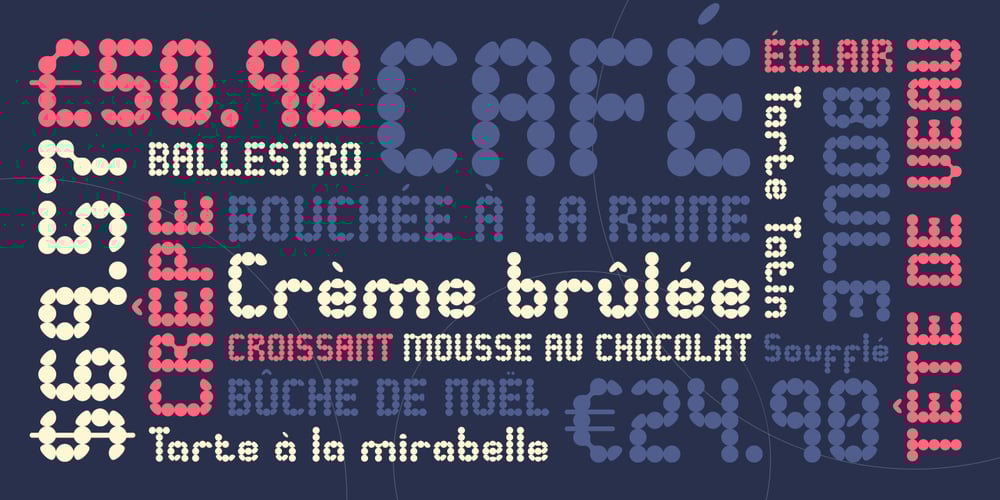
Ballestro
Ballestro font
Ballestro Font Family was designed by Tim Rex and published by Rex Face. Ballestro contains 1 styles and family package options. Ballestro is a playful, versatile display font. Its name is a nod to the characters being constructed using a grid-like pattern of balls. Ballestro is great for headlines, signage, logos, packaging and more.